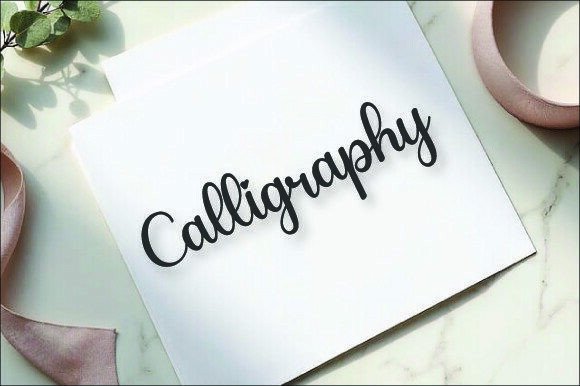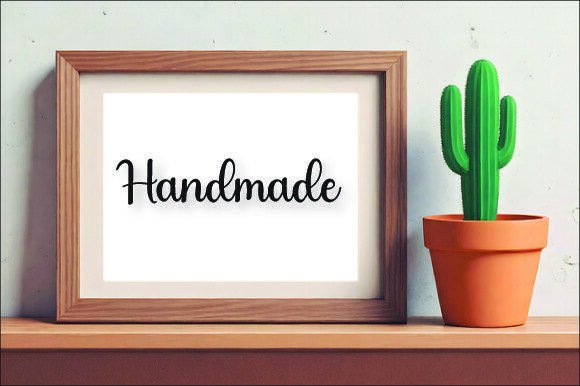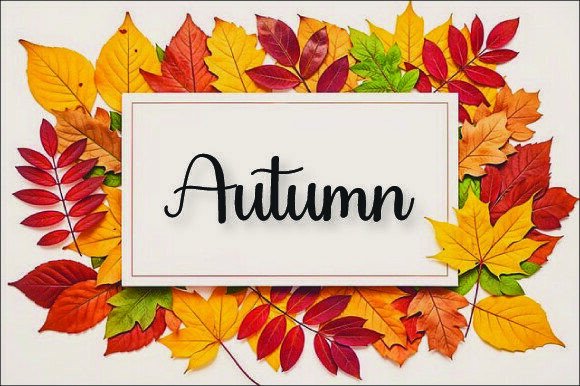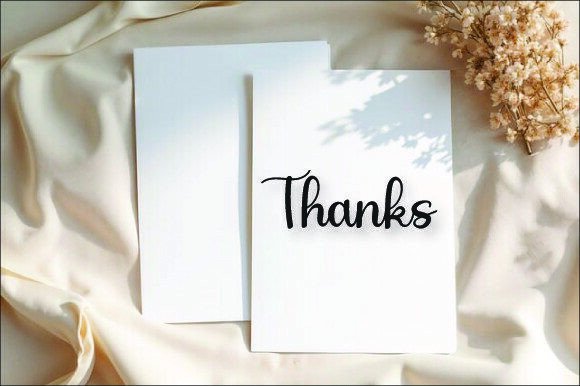
Introduction to Jomblo Font
Have you ever been working on a creative project, pouring your heart and soul into every detail, only to feel like something is missing? Maybe you’re struggling to find the perfect font to bring your vision to life. If so, you’re not alone! Many designers face this challenge every day. But what if I told you that there’s a font that could change the game for you? Say hello to the Jomblo Font, a sweet and friendly handwritten font that’s about to become your new best friend.
The Jomblo Font is more than just a font – it’s a design resource that can elevate your high-quality projects to the next level. With its natural and unique style, it’s incredibly versatile and can be used for a wide range of creative endeavors. Plus, its transparent background makes it easy to layer and manipulate, giving you complete control over your design. And the best part? It’s available for free download, making it an accessible resource for designers of all levels.
Key Features of Jomblo Font
- High-quality design with a transparent background, perfect for creative projects that require a unique touch.
- Unique characteristics include a modern, minimalist aesthetic and a wide range of customization options.
- Designed to be versatile, making it suitable for various creative projects, from digital art to print media.
Honest Review: Jomblo Font
As a designer, I’m always on the lookout for high quality fonts to elevate my creative projects. Recently, I stumbled upon the Jomblo Font, and I’m excited to share my honest review.
- The Jomblo Font features a sleek, modern design that’s perfect for digital projects.
- The transparent background makes it easy to layer over images and textures.
- The font only comes in a single weight, which may not be suitable for projects that require bold or italic text.
- The character set is limited, which may cause issues for designers working with non-English languages.
Overall, I’m impressed with the Jomblo Font’s potential, but its limitations prevent me from giving it a full 5-star rating. If you’re working on a digital project and need a modern, high-quality font, the Jomblo Font is definitely worth considering. Just be aware of its limitations and plan accordingly.
Tips for Getting the Most Out of Jomblo Font
For the best results, use Jomblo Font in combination with other high-quality design elements. Experiment with different font sizes and colors to create a visually appealing design. Jomblo Font is a versatile font that can be used in a variety of creative projects, from logos to social media graphics.
Jomblo Font is commonly used in digital design, including logos, social media graphics, and website headers. Its unique style and high quality make it a popular choice for designers and creatives.